Best Fonts for Motivational Quote Decor: 15 Cheerful Typefaces to Uplift Any Space
Choosing the best fonts for motivational quote decor is more than a stylistic decision, it’s about setting the tone and emotion behind every phrase. A font carries personality; it can energize a room, inspire action, or offer calm reassurance. For quote enthusiasts and decorators, the right typeface bridges the gap between words and feelings, creating a cohesive visual and emotional experience.
Infusing Joy with Vintage and Modern Serif Fonts
Some fonts mix nostalgia with positivity. For example, Goldenlife (Vintage Display Serif) evokes playful elegance. Its classic charm suits inspiring quotes on wooden plaques or gallery walls, but it may not shine in minimalist decor.
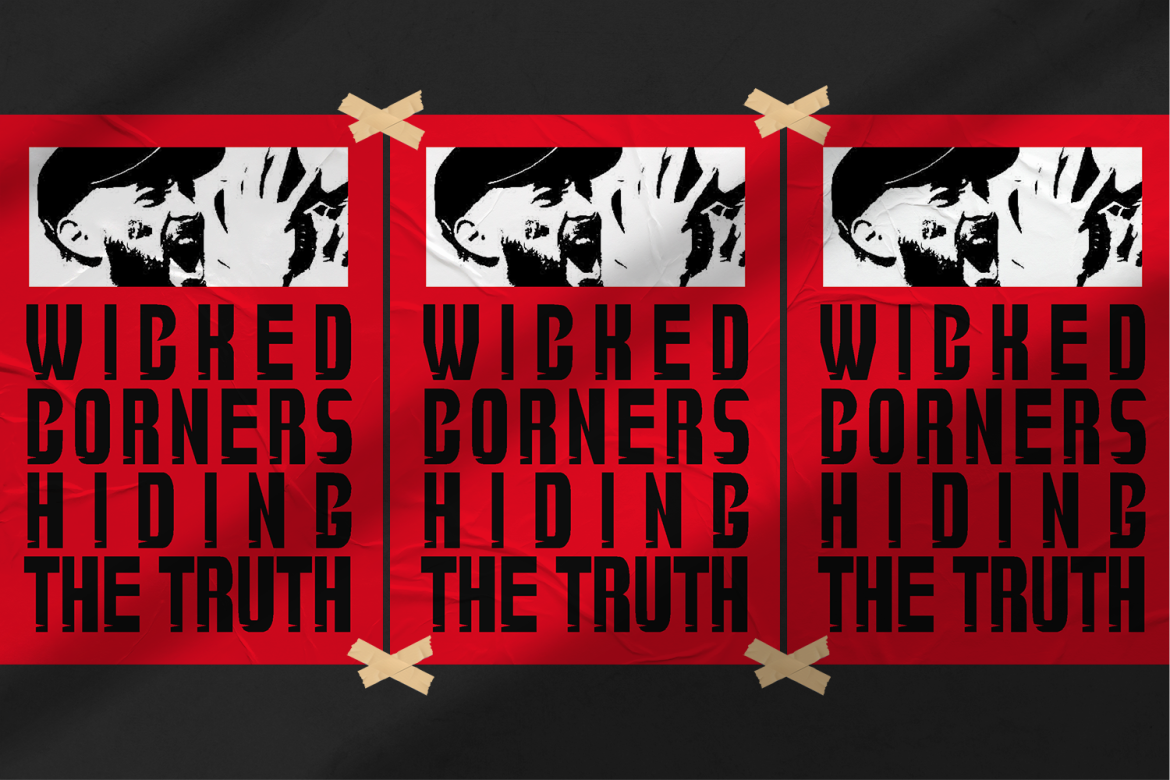
Similarly, Travino Display (Modern Display) offers clean curves and bold lines that improve readability and mood though its boldness might dominate delicate visuals.
Adding Energy with Colorful and Bold Displays
When bright and vibrant vibes are essential, fonts like Paint Burst Unique (Colorful Display) bring attention through lively letterforms. They’re great in creative studios or youth spaces, but can feel chaotic in calm or professional environments.
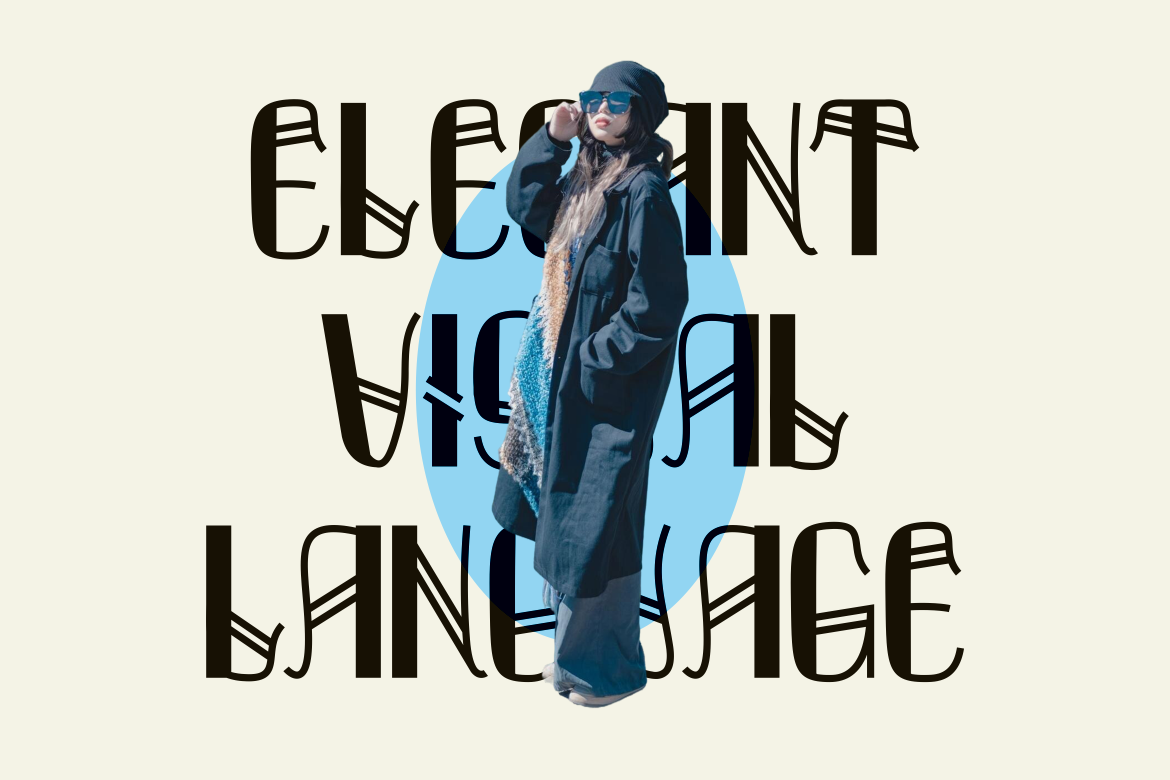
The futuristic Luxore Shift (Modern Display) adds cool sophistication, perfect for tech-forward quotes but may feel impersonal in more intimate settings.
Embracing Fun with Rounded and Playful Fonts
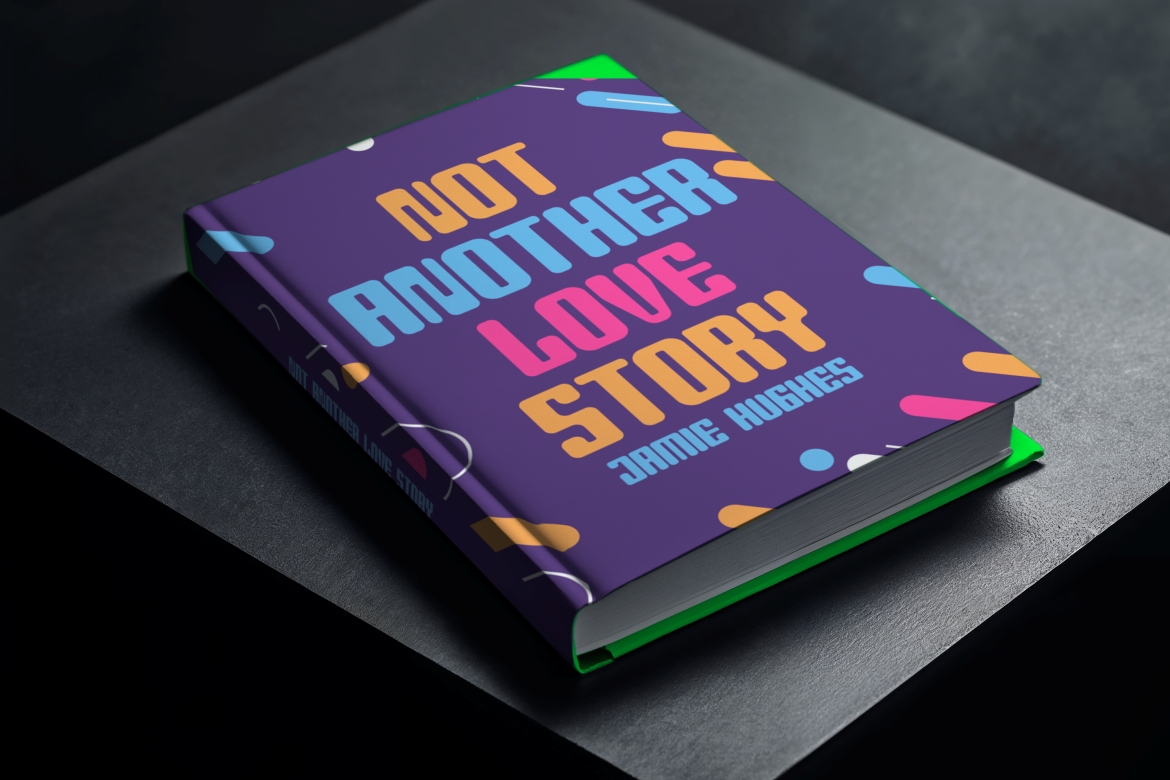
For lighthearted quotes, rounded typefaces are ideal. Mikado Bold (Rounded Fun Bold) exudes cheerfulness and fits nursery walls or creative workshops.
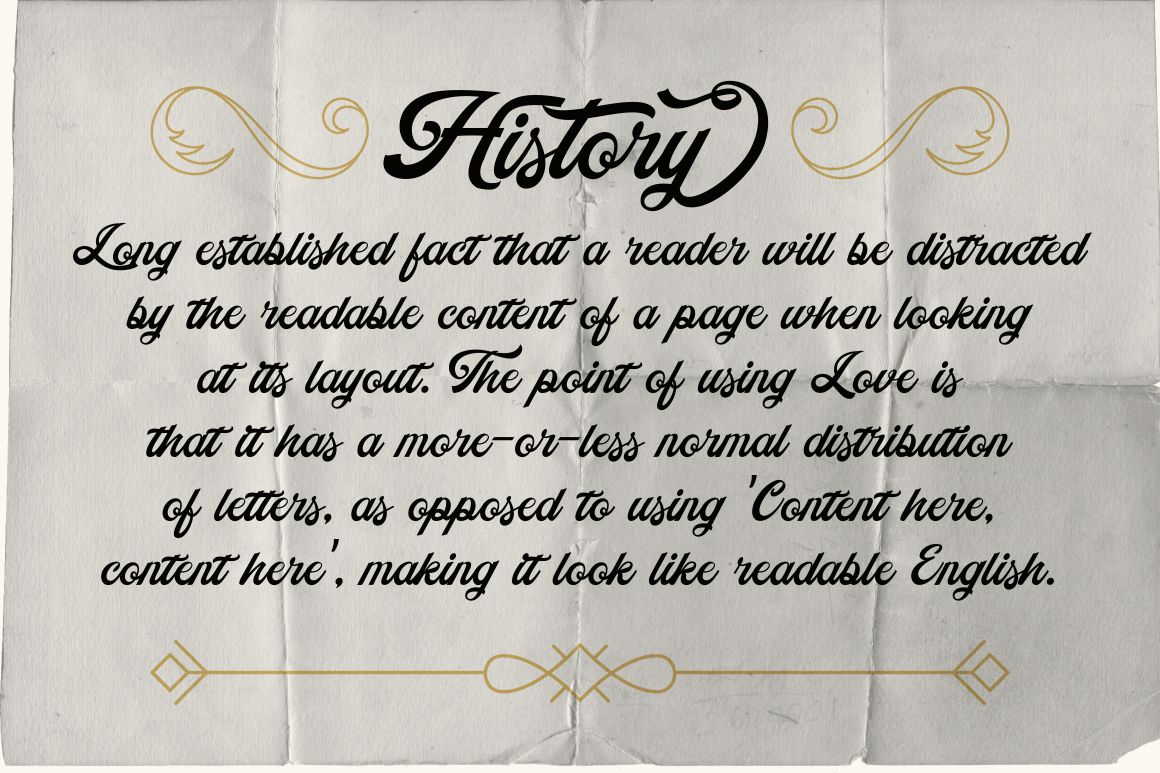
However, its thick strokes can overpower fine prints. Golden Jewelry (Luxury Calligraphy Script) brings elegance and flair, though its intricate details risk losing impact at small sizes.
Elegance Through Script and Handwritten Fonts
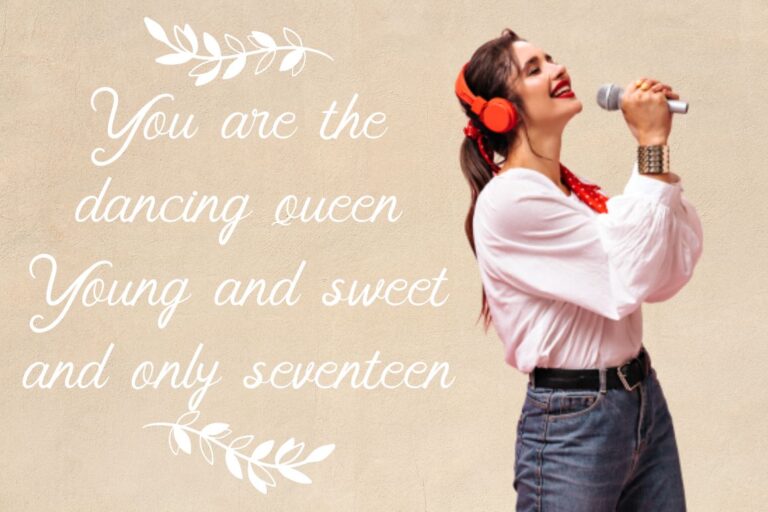
Handwritten scripts add a personal touch and emotional warmth. Faldith (Elegant Calligraphy Script) balances refinement and readability but might appear too formal for casual spaces.
Ravonna Touch (Signature Handwritten Script) feels authentic and charming, though its stylistic flourishes may challenge legibility in long lines.
Balancing Simplicity with Modern Sans Serifs
Sans serif fonts provide clarity and modernity. Corvail (Sans Serif Display) is sleek and readable, perfect for high-impact quotes yet can feel too neutral in creative environments.
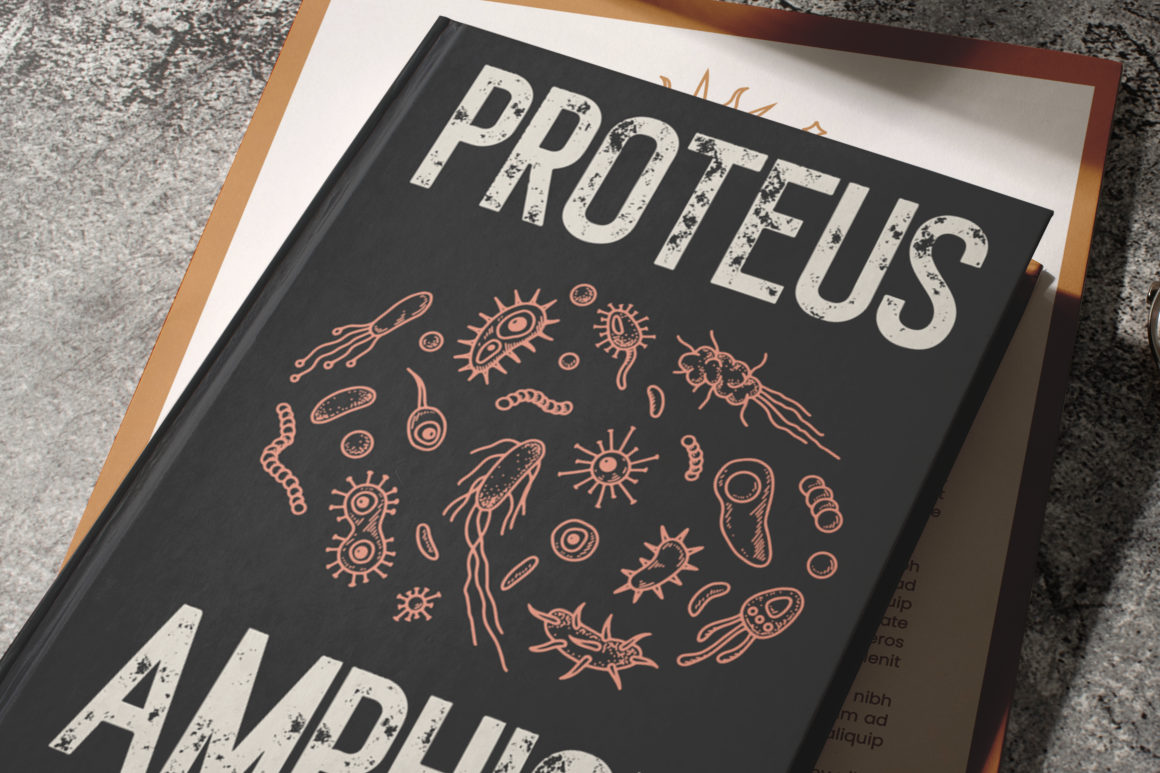
Rolever (Modern Sans Serif) adds contemporary warmth thanks to subtle curves, though its straightforwardness might not stand out in bold visuals.
Captivating with Display Serif Fonts
Display serif fonts bridge elegance and flair. De Rolande (Display Serif) delivers a classic feel that’s perfect for framed inspirational quotes. It works well with neutral decor but may clash with ultra-modern aesthetics.
Nurturing Charm with Handwritten and Romantic Scripts
Organic scripts offer emotion and gentle mood. Anitya (Handwritten Modern) appears casual yet stylish and highly versatile, though its informality might not suit upscale settings.
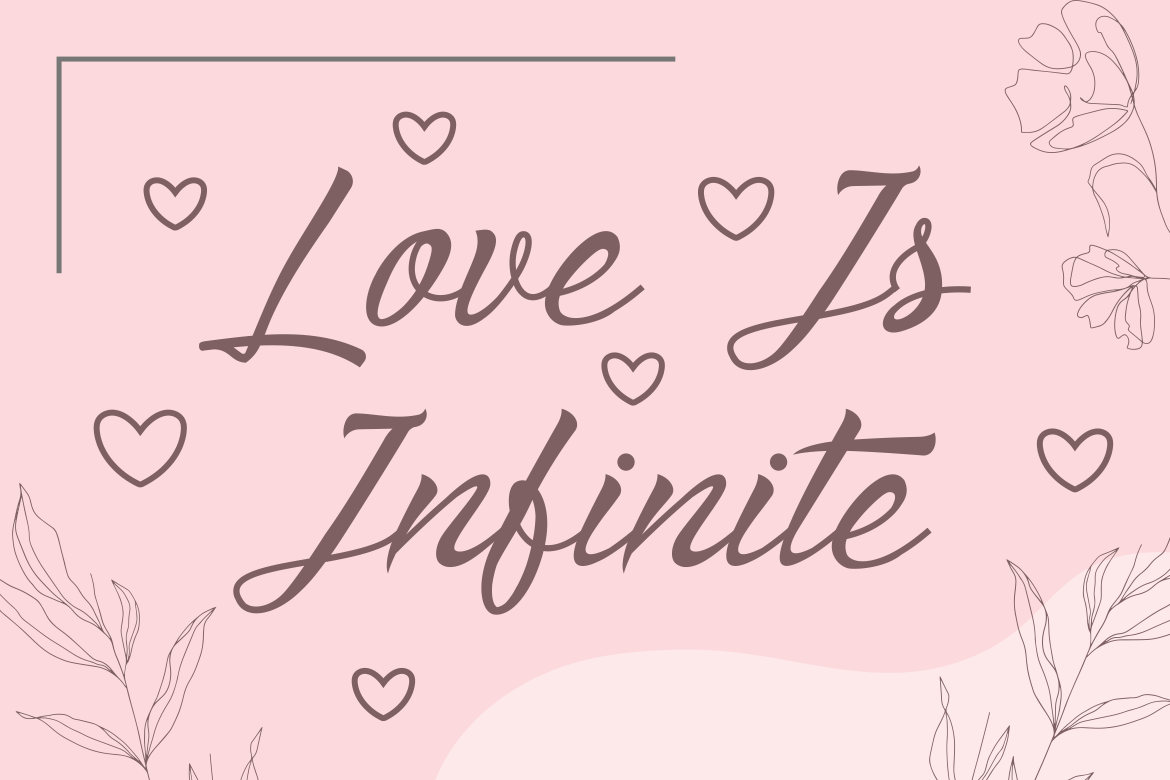
Beloved Grace (Romantic Script) brings elegance and a soft touch, ideal for wedding-themed quotes or gentle affirmations. However, its complexity calls for larger formats.
Celebrating Softness with Elegant Scripts
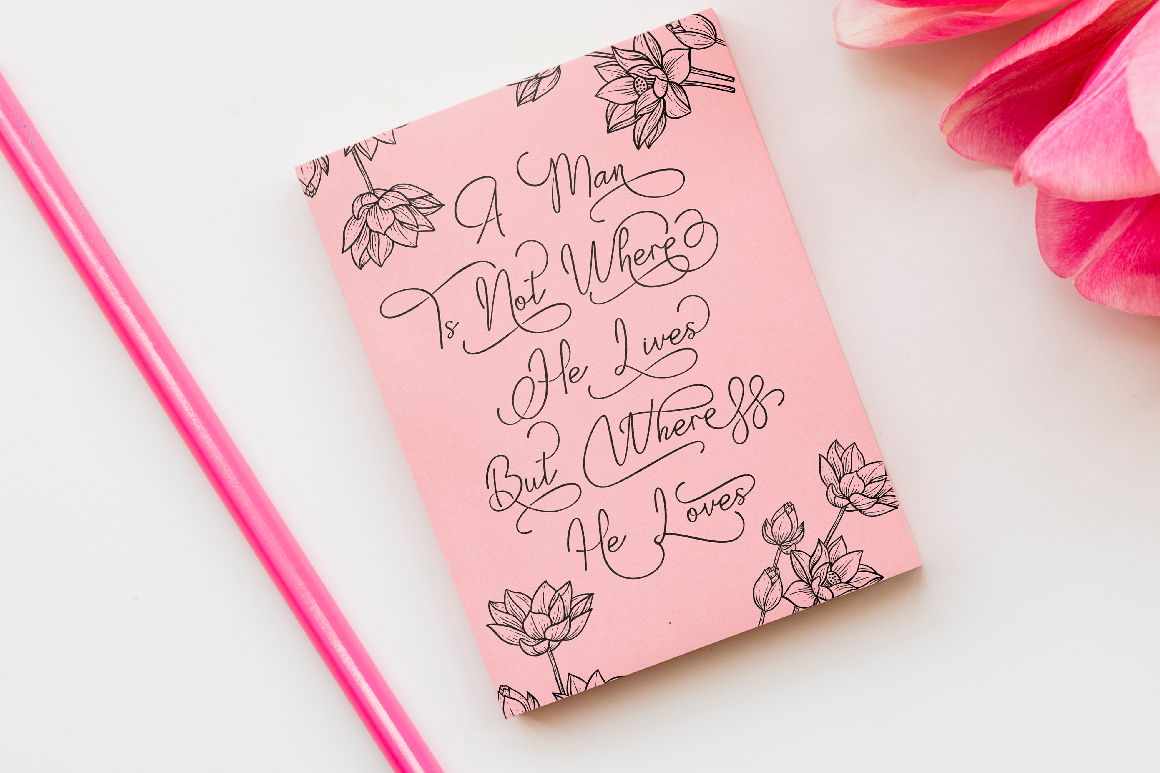
For truly delicate expressions, Bright Bride (Elegant Script) offers romance and softness, perfect for heartfelt messages. Still, fine lines may get lost when scaled down.
Sparking Smiles with Playful Hand-Drawn Fonts
Tikiland (Playful Display Hand‑drawn) completes our list with handmade charm. Its irregular curves and casual tone encourage spontaneity and fun ideal for creative spaces and kid-themed environments. But this approach may feel too whimsical for conventional work environments.
Choosing the Right Font for Your Quote Decor
Choosing the best fonts for motivational quote decor depends on context and mood. For personal growth quotes in a home office, calligraphy scripts like Faldith or Ravonna Touch create warmth and meaning. If you’re designing a poster for a startup office, cleaner fonts like Corvail or De Rolande ensure clarity and energy. Playful spaces such as classrooms or craft studios benefit from hand-drawn fonts like Tikiland or Mikado Bold. Always pair display fonts with simpler typefaces for body text, maintain consistent color themes, and test your design at different scales to ensure readability and cohesion.